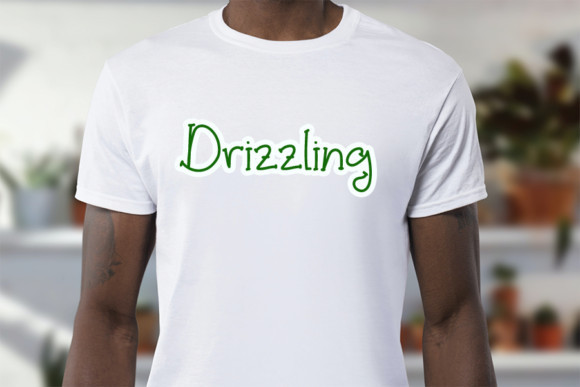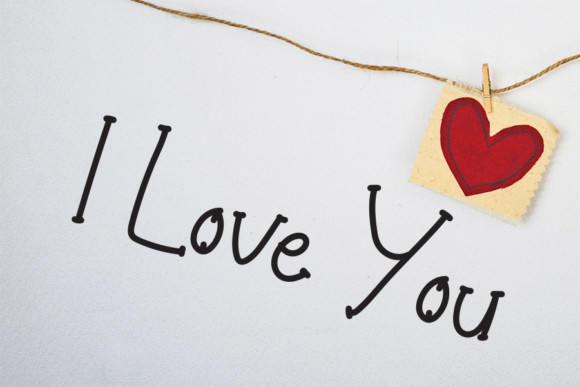
Drizzling Font
Drizzling is a sweet and friendly handwritten font. Its natural and unique style makes it incredibly fitting to a large pool of designs. The possibilities are endless!